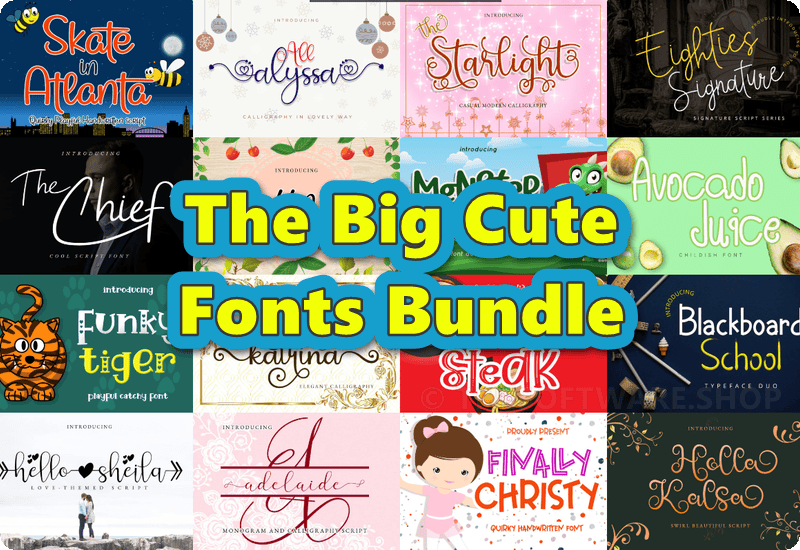
Introducing The Big Cute Fonts Bundle – a collection of 50 adorable fonts designed by Airotype. Get ready to elevate your designs with these charming and versatile typefaces. Whether you’re creating t-shirts, invitations, or any other graphical project, this bundle has got you covered.
- Giraffe Highlight Script & Handwritten Font
- Starglass Script & Handwritten Font
- Lazy Chicken Script & Handwritten Font
- Coffee Milkshake Serif Font
- Skate in Atlanta Script & Handwritten Font
- All Alyssa Script & Handwritten Font
- The Starlight Script & Handwritten Font
- Eighties Signature Script & Handwritten Font
- The Chief Script & Handwritten Font
- Soffnia Script & Handwritten Font
- Monster Kingdom Display Font
- Avocado Juice Script & Handwritten Font
- Funky Tiger Fuentes Display Fuente
- Kayla Katrina Script & Handwritten Font
- Ramen Steak Script & Handwritten Font
- Blackboard School Decorative Font
- Hello Sheila Script & Handwritten Font
- Adelaide Script & Handwritten Font
- Finally Christy Script & Handwritten Font
- Holla Kalsa Fontes Script Fonte
- Justica Tail Script & Handwritten Font
- Kilimanjaro Script & Handwritten Font
- Sabanita Script & Handwritten Font
- The School Script & Handwritten Font
- Thunder Boom Script & Handwritten Font
- Girls Stuff Script & Handwritten Font
- Fried Beef Tomato Script & Handwritten Font
- King Rabbit Script & Handwritten Font
- Kalimera Script & Handwritten Font
- Fate of Love Display Font
- Melly Thoughtie Script & Handwritten Font
- Lafentha Script & Handwritten Font
- Grilled Salmon Script & Handwritten Font
- New Class Script & Handwritten Font
- Dear Daisy Script & Handwritten Font
- Blonding Panda Script & Handwritten Font
- Chocolate Sweetsour Czcionki Skryptowe Czcionka
- Another Girlie Script & Handwritten Font
- Orange Milkshake Script & Handwritten Font
- Dads Life Display Font
- Agatha Salting Script & Handwritten Font
- Mylea Script & Handwritten Font
- Rosaline Script & Handwritten Font
- Valeshiya Script & Handwritten Font
- Miss Githa Script & Handwritten Font
- Shark Blindate Script & Handwritten Font
- Maretha Chellia Script & Handwritten Font
- Rossalia Shine Script & Handwritten Font
- Samerville Script & Handwritten Font
- Lakeisha Script & Handwritten Font
A Diverse Collection of Unique Fonts
This incredible bundle features an impressive variety of fonts, each with its own unique style and personality. From elegant script fonts like “Giraffe Highlight” and “Starglass,” to playful handwritten fonts like “Lazy Chicken” and “Coffee Milkshake,” there’s something to suit every design need.
Retro and Modern Font Styles
Looking to add a retro touch to your project? Fonts like “Eighties Signature” and “Monster Kingdom” will transport you straight back to the good old days. Need a more modern and trendy vibe? Check out “Avocado Juice” and “Kayla Katrina” for a fresh and contemporary look.
Fun and Creative Font Names
With names like “Ramen Steak,” “Fried Beef Tomato,” and “Grilled Salmon,” it’s clear that this bundle brings a sense of fun and creativity to your design projects. With fonts like these, your designs will never be boring!
Perfect for Any Design Project
Whether you’re designing for a school project, a business logo, or even a personal blog, this collection has fonts that will captivate and inspire. Stand out from the crowd with fonts like “Hello Sheila” and “Finally Christy,” or add a touch of whimsy with “Funky Tiger Fuentes” and “Holla Kalsa Fontes.”